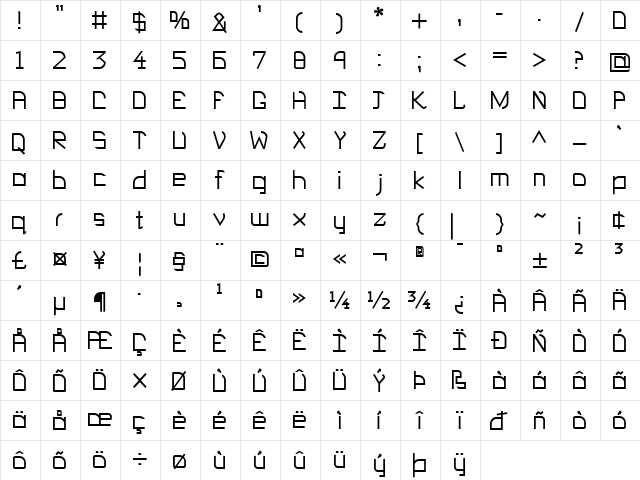
EP Heaven Heaven
Design Context for EP Heaven Typeface
EP Heaven is a composed and adaptable typeface that performs quietly and consistently across a wide range of design contexts.